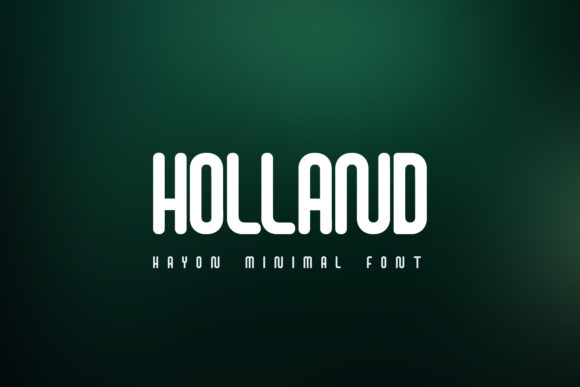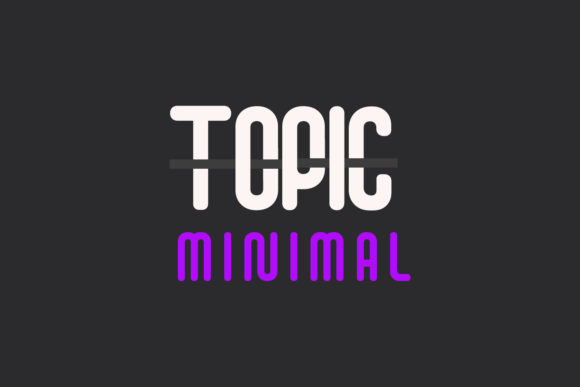
Introducing Hayon Font: The Ultimate Display Font for Creative Designs
Are you a designer, crafter, or digital artist looking for a unique and versatile font to elevate your creative projects? Look no further than Hayon Font! This stunning display font is perfect for a wide range of applications, from crafting and digital designing to presentations and greeting card making.
What Makes Hayon Font So Special?
Hayon Font is an incredibly unique and versatile display font that is sure to capture your heart. Its distinctive style is perfect for creating spectacular designs that stand out from the crowd. Whether you’re working on a digital project, crafting a handmade card, or designing a presentation, Hayon Font is the perfect choice.
Key Features of Hayon Font
• Unique and eye-catching style: Hayon Font boasts a one-of-a-kind design that is sure to grab attention and leave a lasting impression.
• Versatile and adaptable: This font is perfect for a wide range of creative projects, from digital designs and presentations to crafting and greeting card making.
• Easily readable: Despite its unique style, Hayon Font is surprisingly easy to read, making it perfect for both digital and print applications.
• High-quality design: Hayon Font is designed with precision and attention to detail, ensuring a crisp and clean appearance in any design.
How to Use Hayon Font in Your Designs
Hayon Font is incredibly easy to use and can be applied to a wide range of creative projects. Here are just a few ideas to get you started:
• Digital designs: Use Hayon Font to add a touch of personality to your digital designs, from social media graphics to blog posts and website headers.
• Crafting and scrapbooking: Add a unique and eye-catching element to your handmade crafts and scrapbooking projects with Hayon Font.
• Presentations and slideshows: Make your presentations and slideshows stand out with Hayon Font’s bold and attention-grabbing style.
• Greeting cards and invitations: Use Hayon Font to create beautiful and unique greeting cards and invitations that are sure to impress.
Why Designers and Crafters Love Hayon Font
Hayon Font has quickly become a favorite among designers and crafters due to its unique style and versatility. Here are just a few reasons why:
• Easy to use: Hayon Font is surprisingly easy to use, even for those with limited design experience.
• Customizable: Experiment with different colors, sizes, and styles to make Hayon Font truly your own.
• Time-saving: With Hayon Font, you can create stunning designs in no time, saving you hours of time and effort.
• Professional results: Achieve professional-looking results with Hayon Font, even if you’re a beginner.
Font Name Hayon Font
Author Design Stag
In conclusion, Hayon Font is a unique and versatile display font that is perfect for designers, crafters, and digital artists. With its eye-catching style, ease of use, and adaptability, Hayon Font is sure to become a staple in your design toolkit. So why wait? Fall in love with Hayon Font and start creating spectacular designs today!